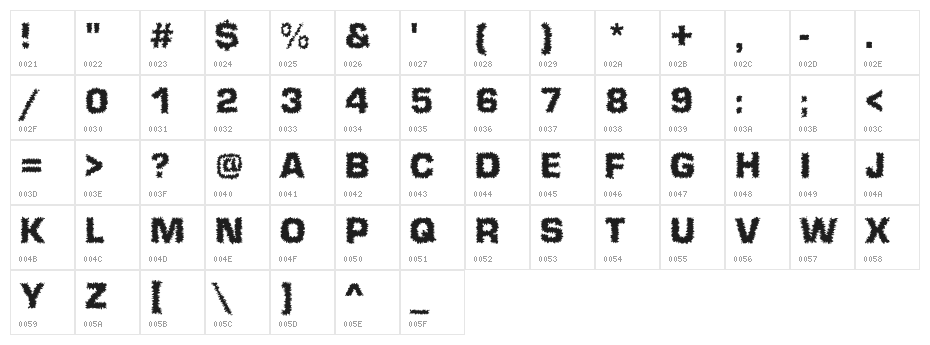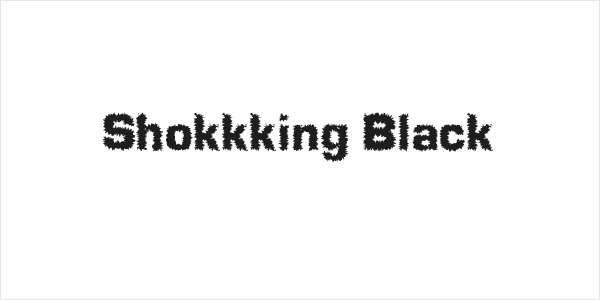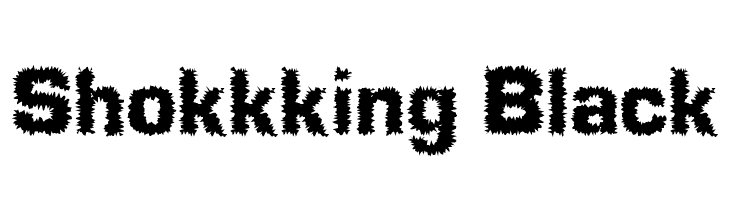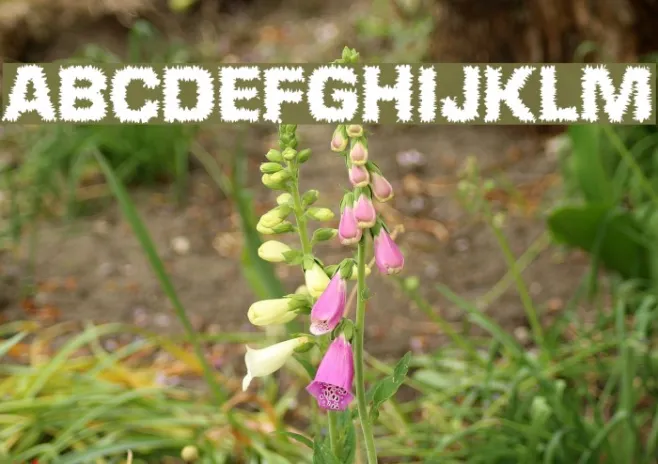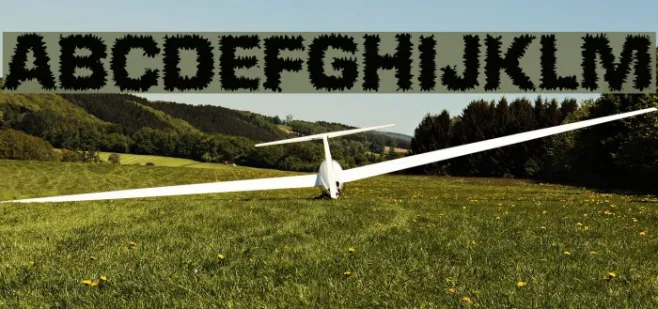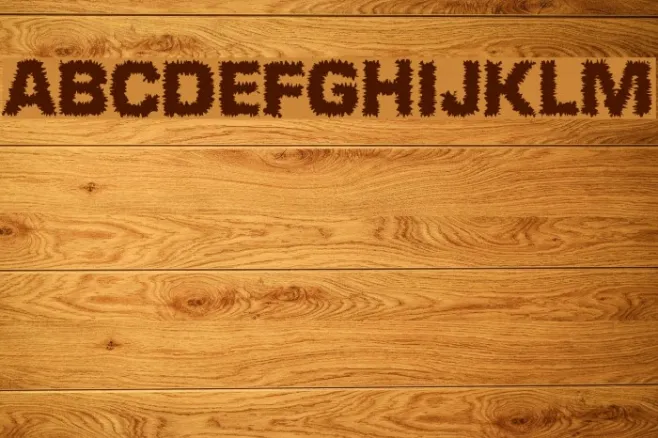
Shokkking Black Font
Shokkking Black Description
This font features a bold and dynamic design with a jagged, spiky texture that gives it a unique and eye-catching appearance. The characters are densely packed with sharp edges, creating a sense of movement and energy. The uppercase and lowercase letters maintain a consistent style, with numbers and special characters following the same aesthetic. This font is ideal for projects that require a bold statement and can capture attention quickly.
| Proposed Projects | Ideal for posters, album covers, event flyers, and any design needing a bold, attention-grabbing headline. |